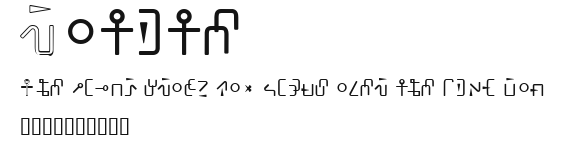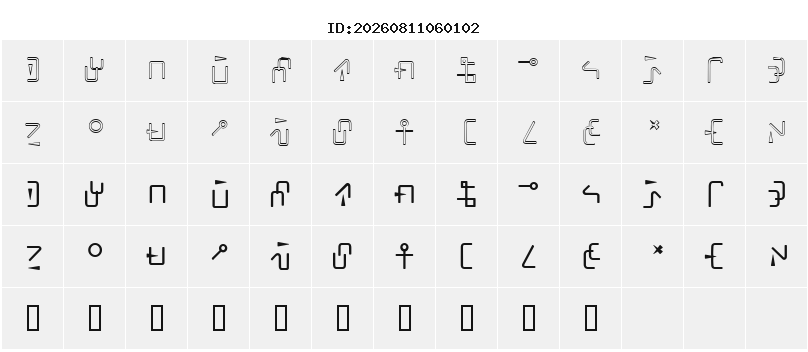
Rotate Preview
• Font Name: Rotate
• Full Font Name: Rotate
About Rotate.ttf
Rotate.ttf is a modern, elegant sans-serif font designed for ultimate readability and visual harmony. Perfect for branding, headlines, web design, and print materials.